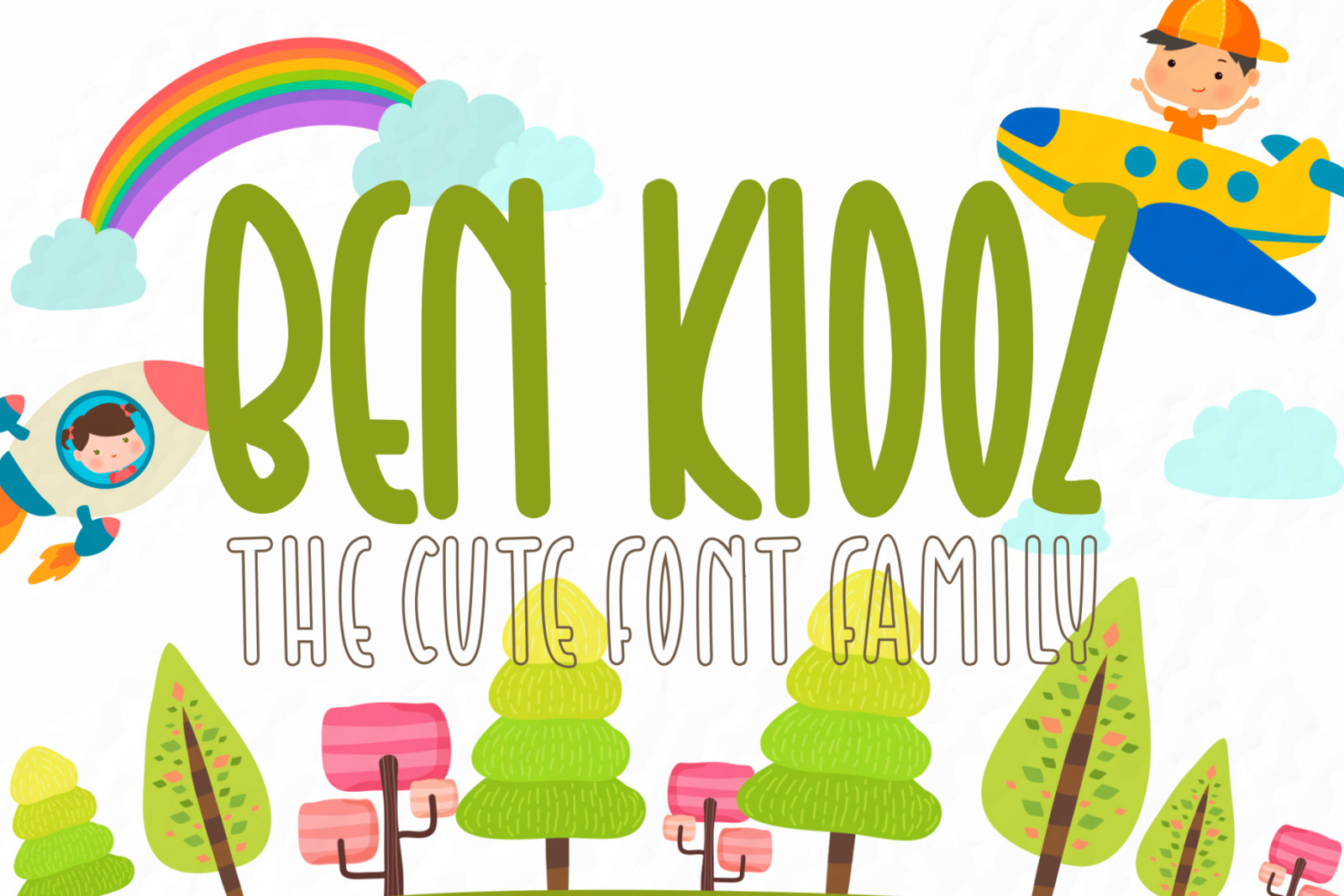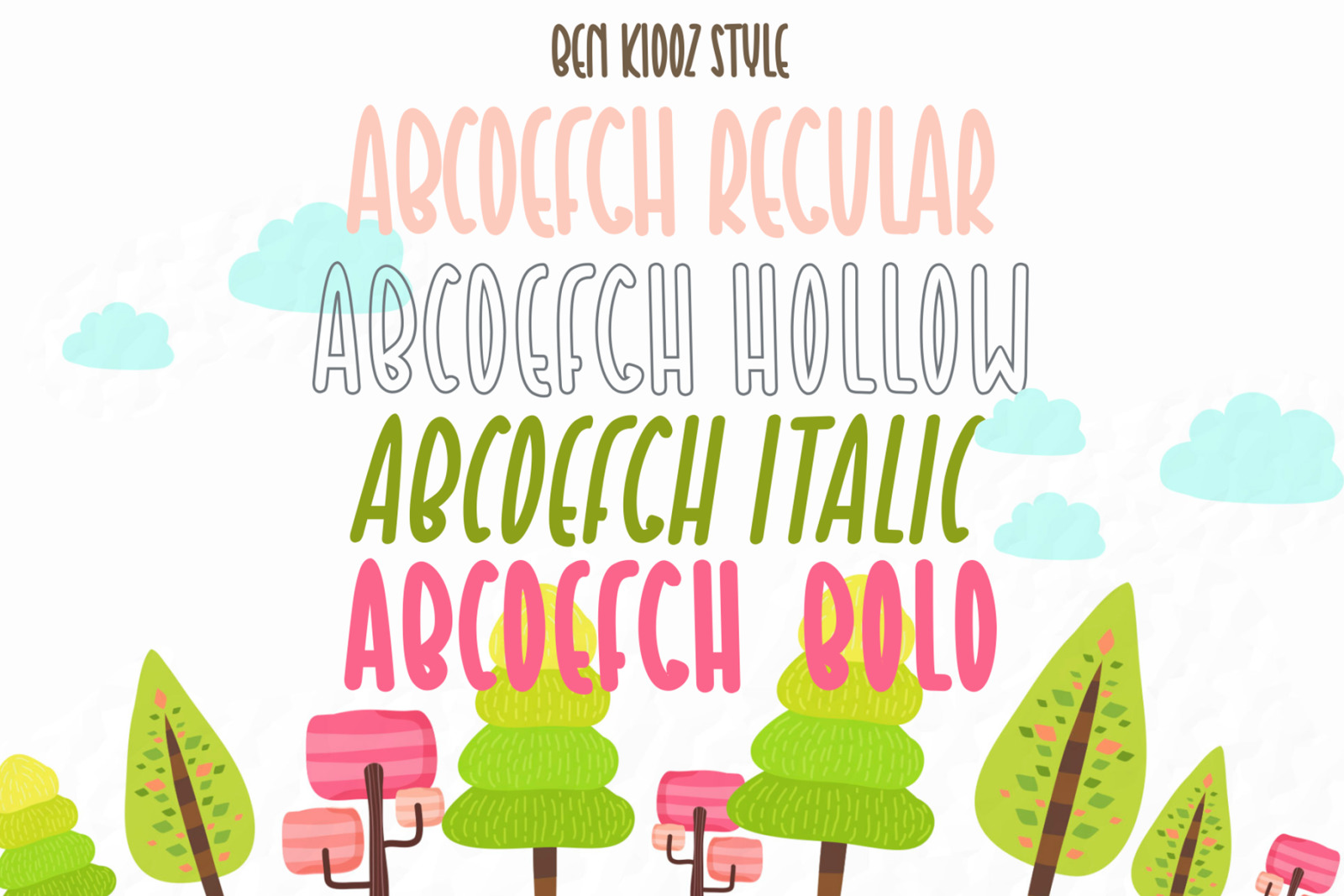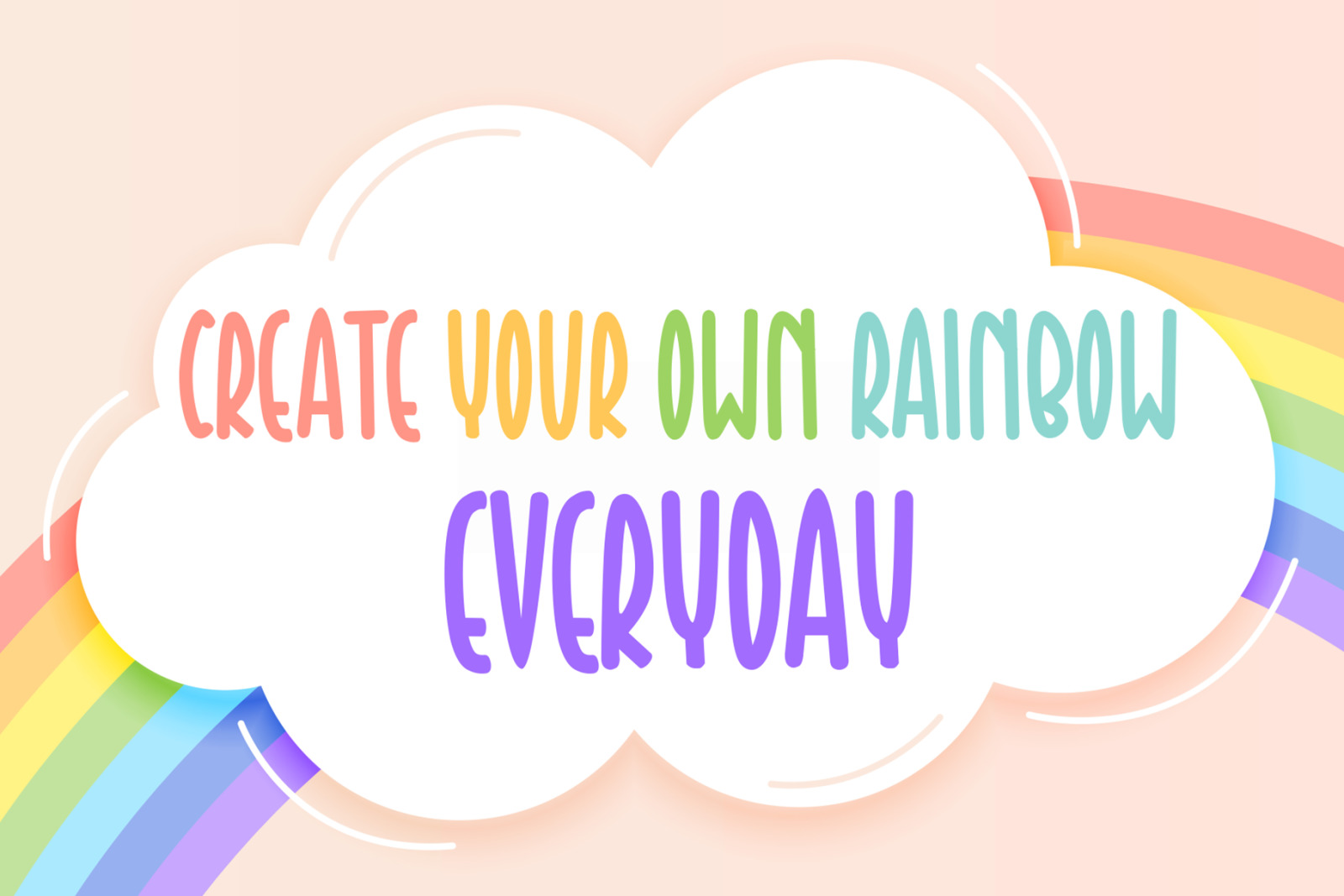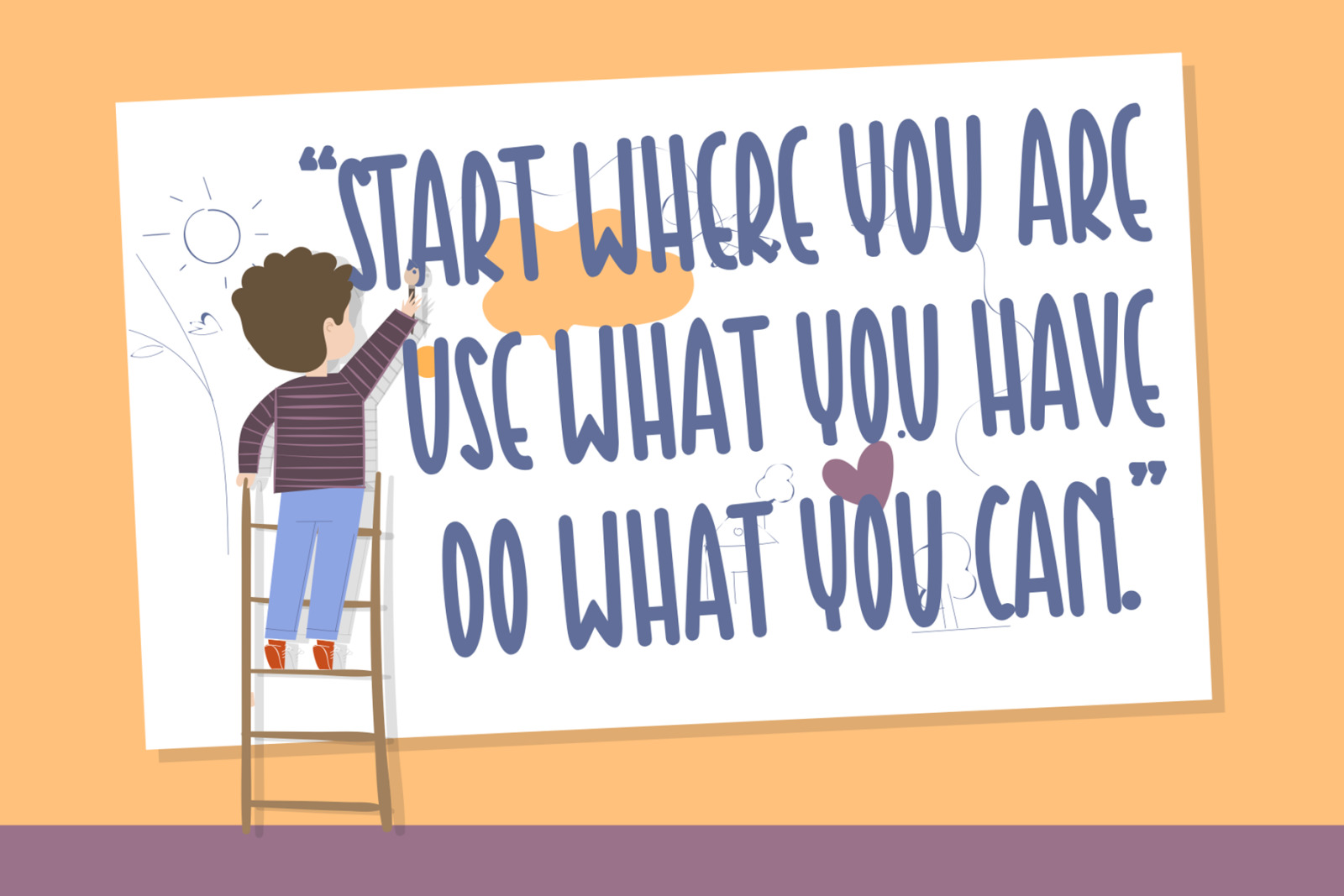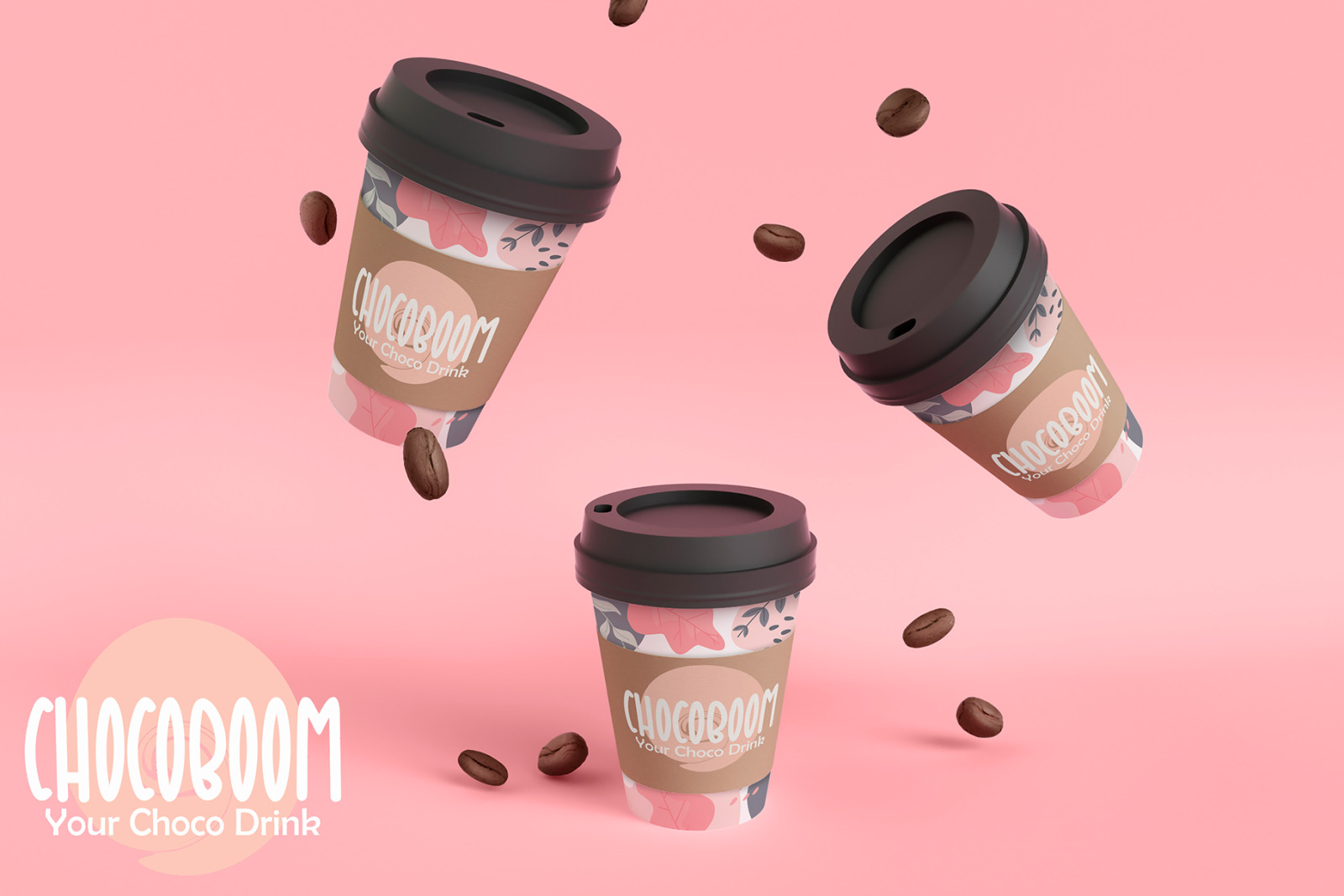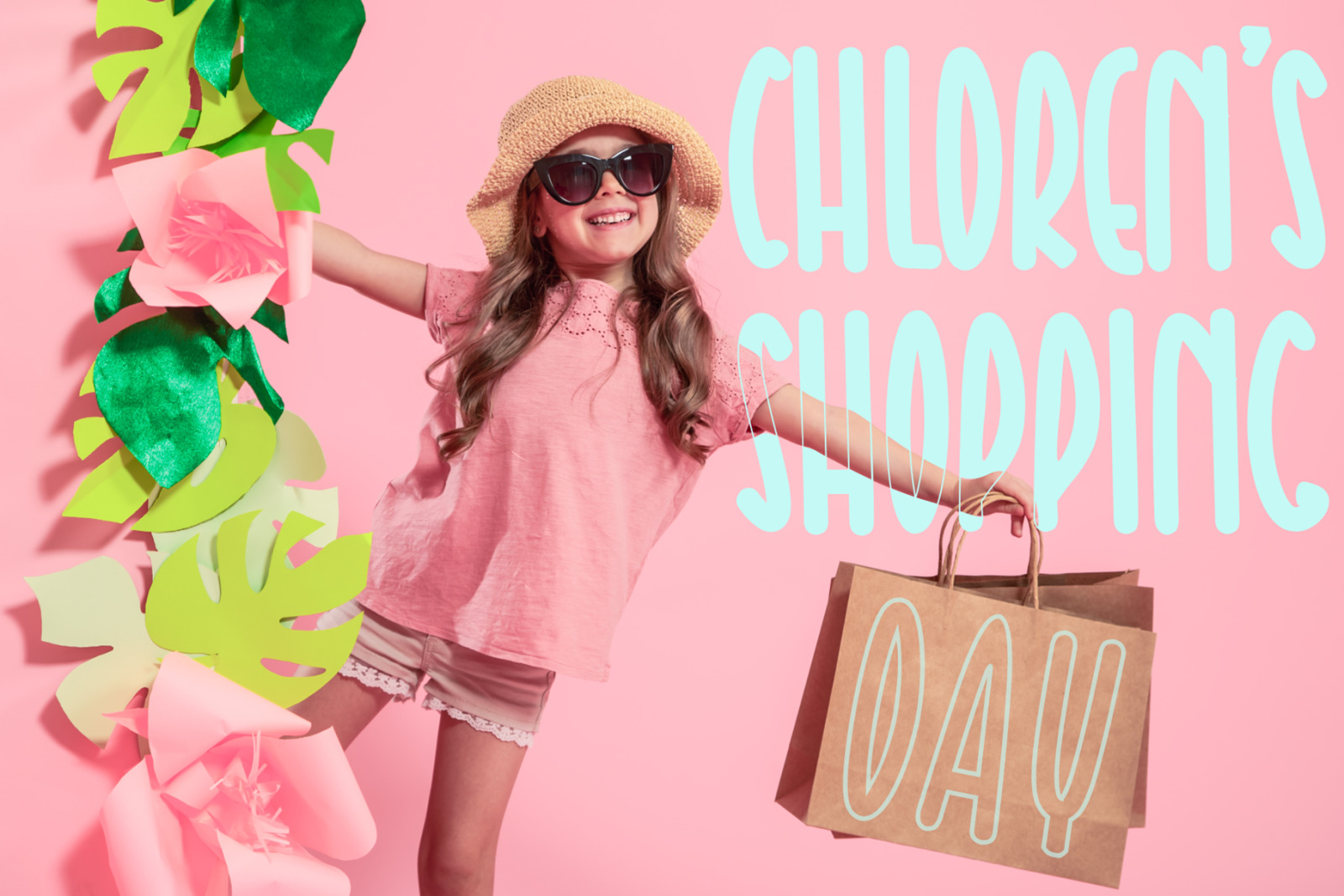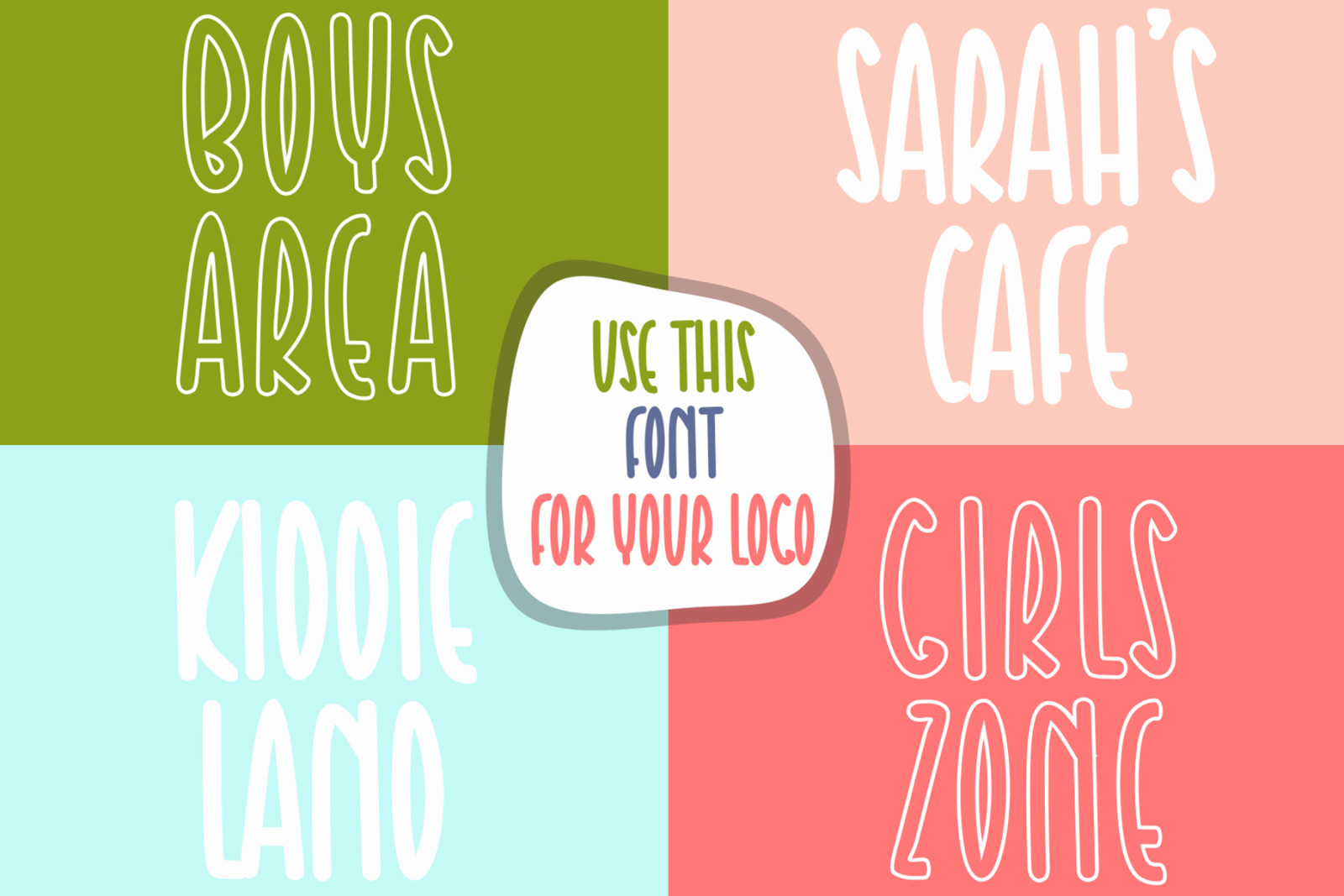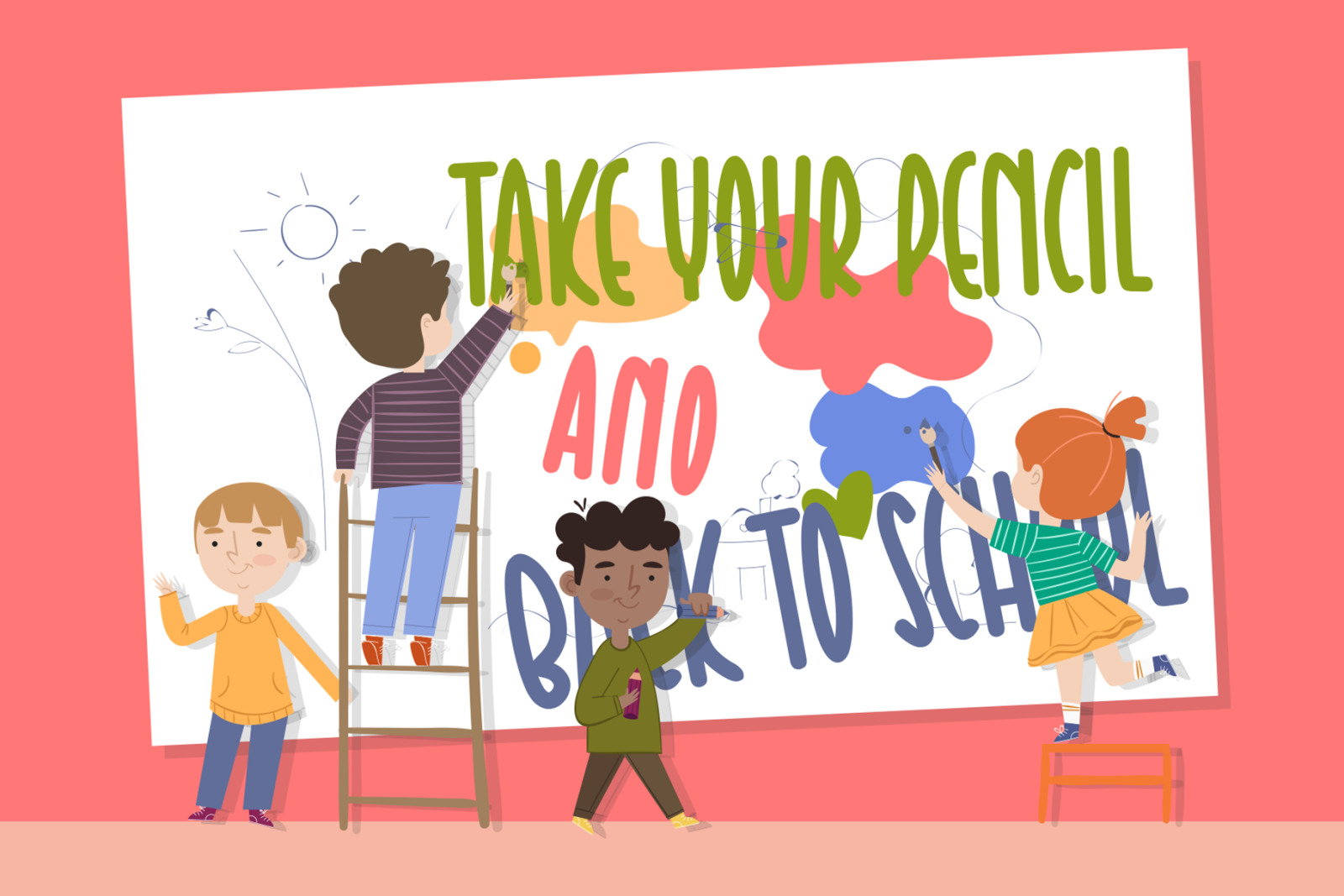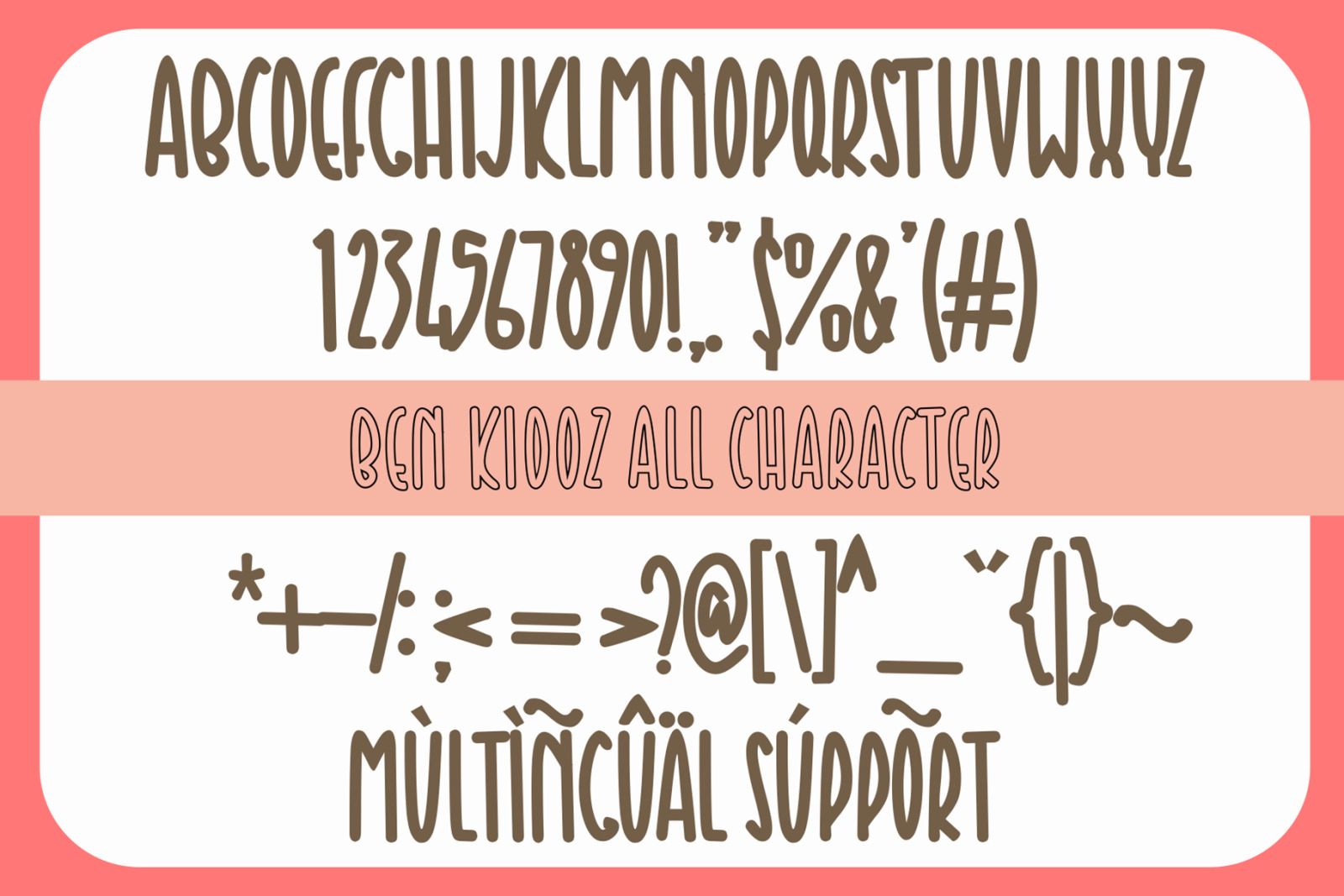
Ben Kidoz Font
Ben Kidoz is a sweet and friendly display font, created with an incredible playful touch. Add this font to your favorite creative ideas and notice how it makes them come alive!
Ben Kidoz Regular
Ben Kidoz Outline
Ben Kidoz Italic
Ben Kidoz Bold